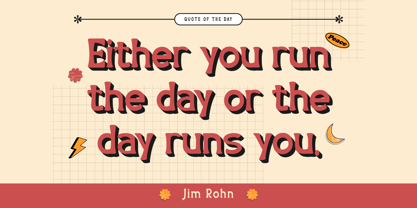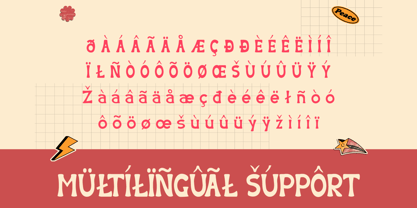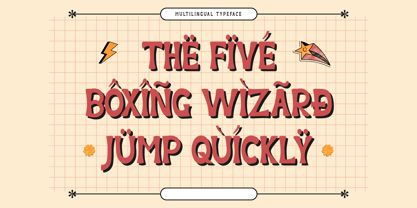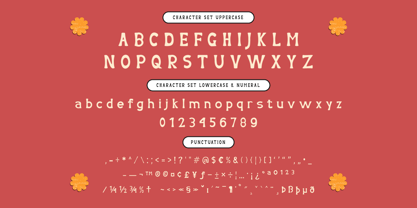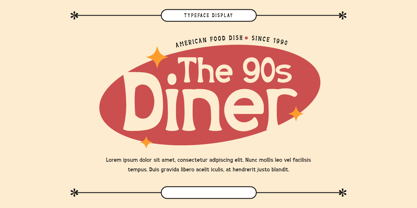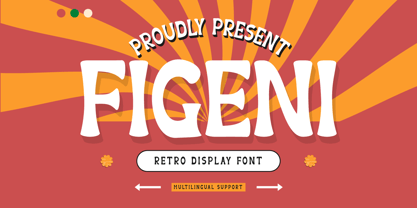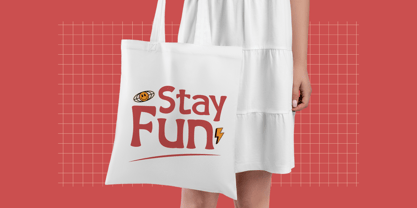
Figeni is a retro display font that combines vintage style with modern design. Its unique, retro-inspired characters make it perfect for designs with a nostalgic feel. Whether you’re creating a poster for a retro-themed event or designing a logo for a brand with a vintage vibe, Figeni is the perfect choice.